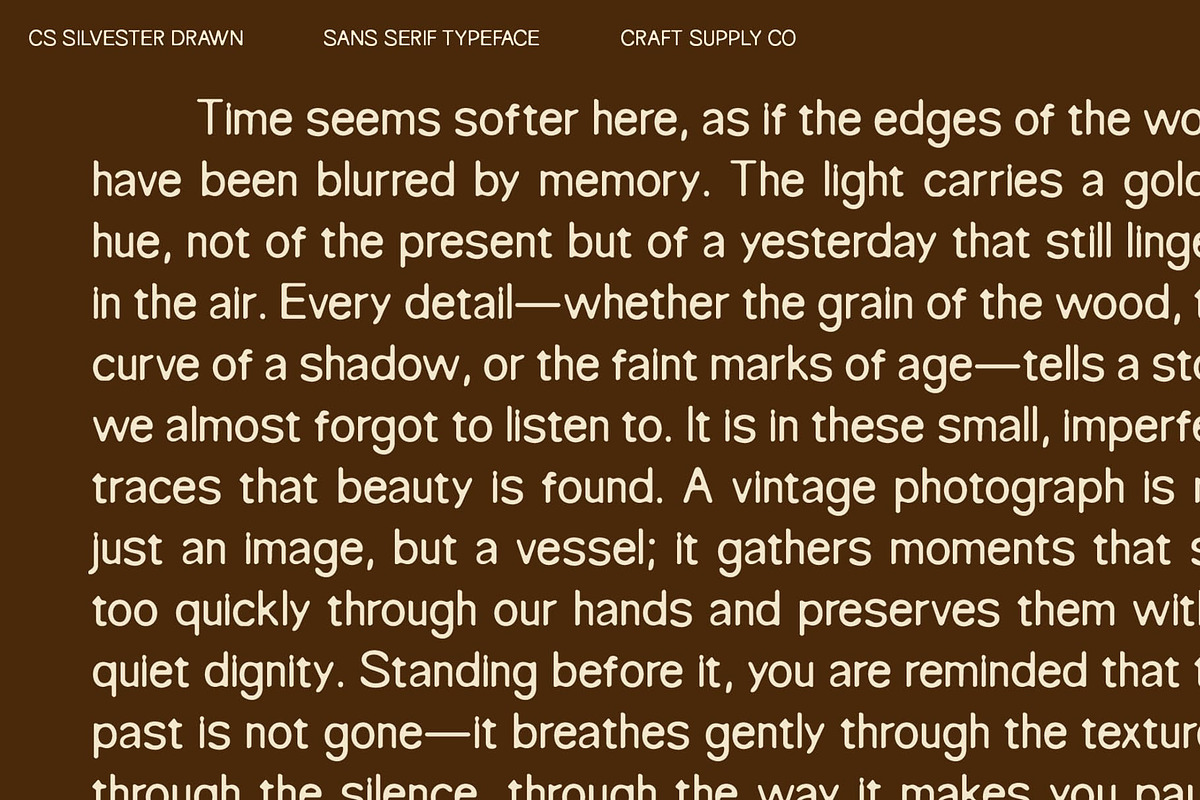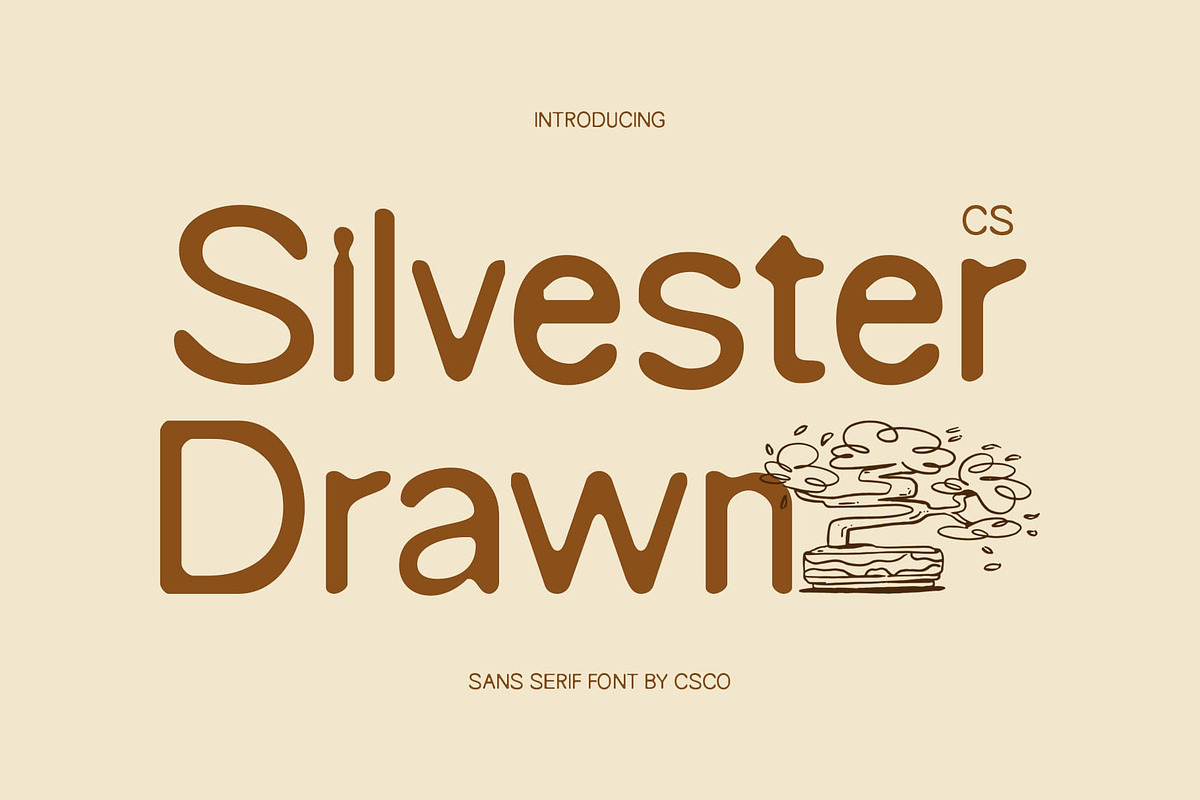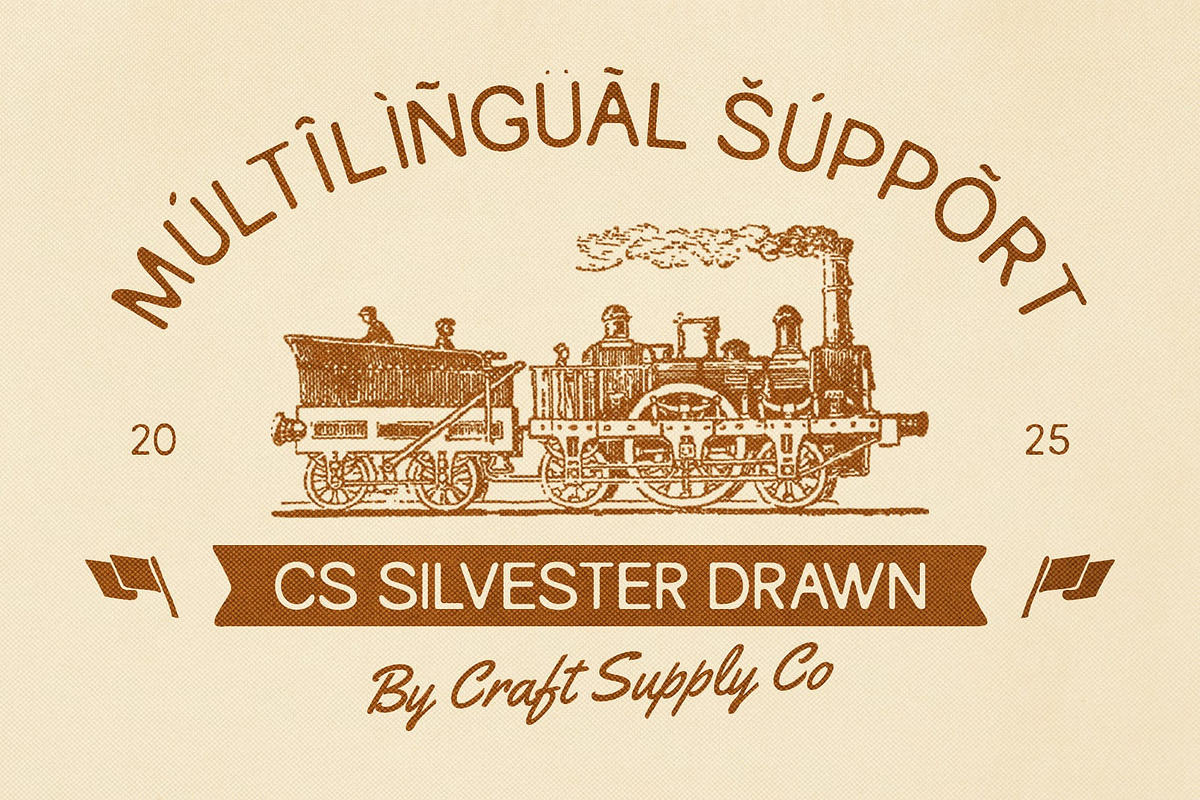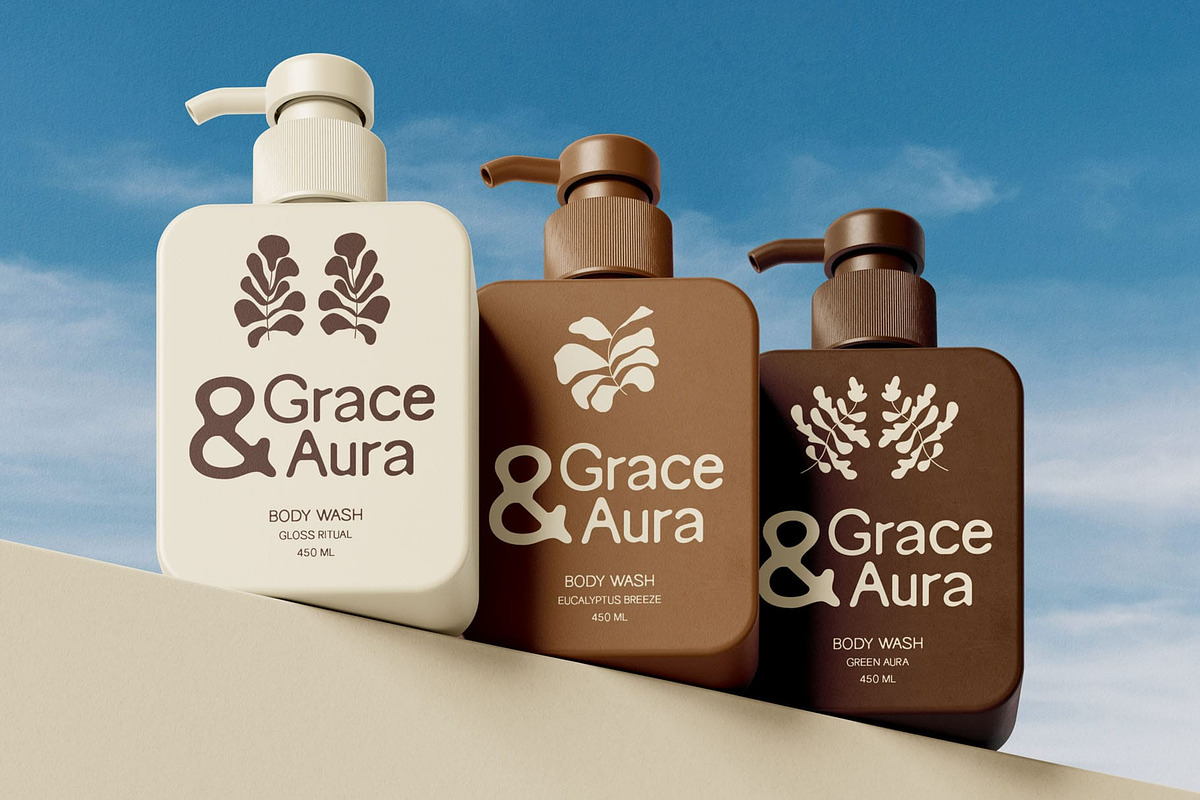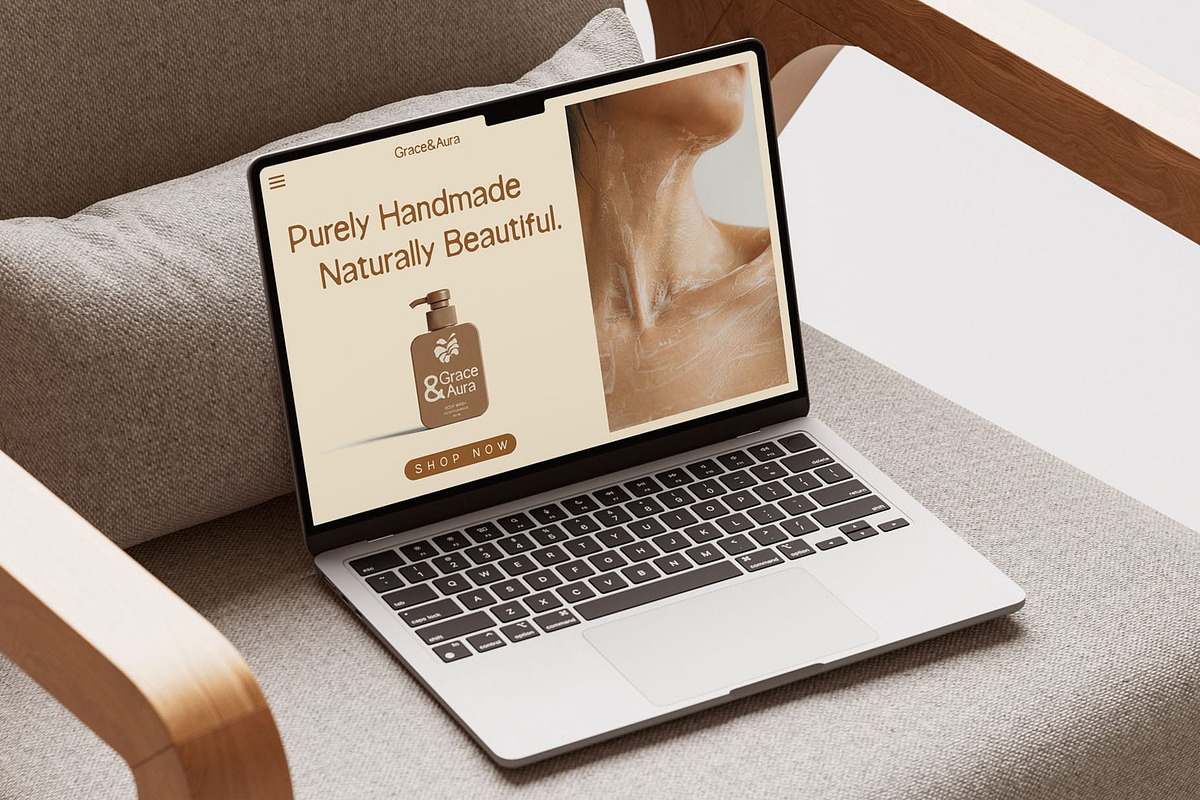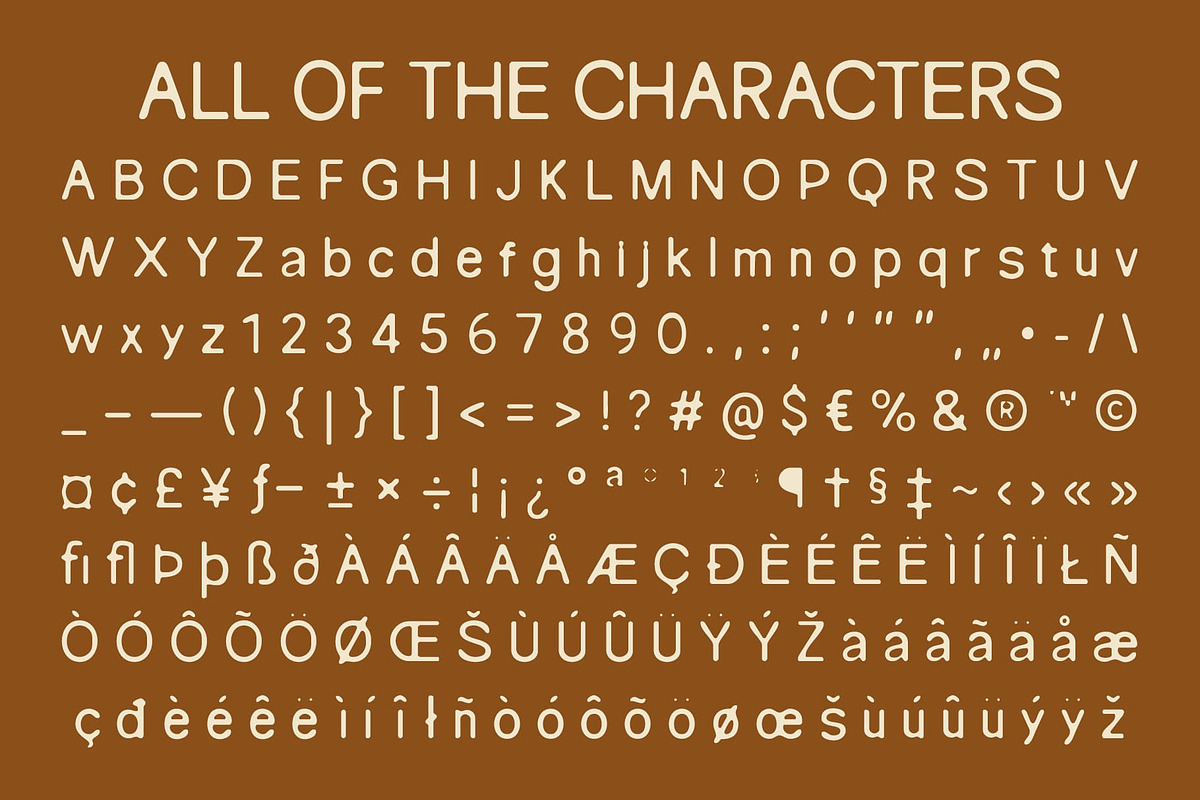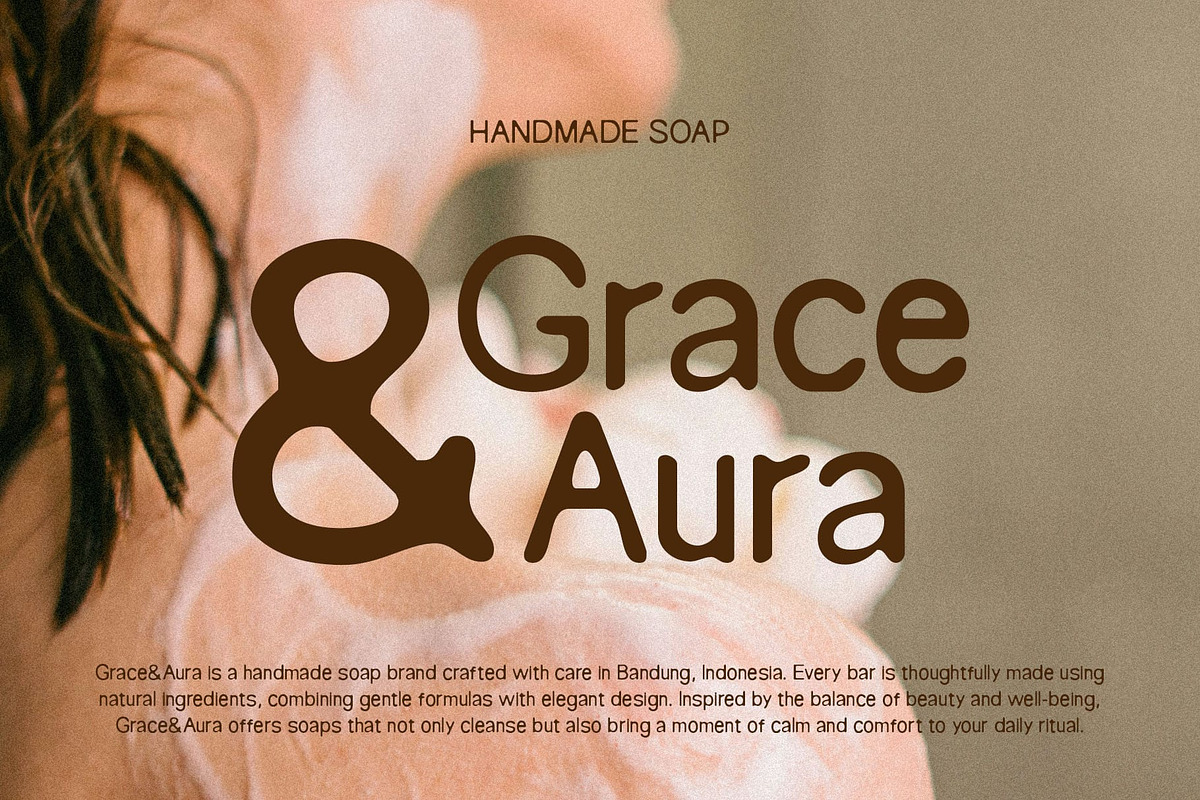
CS Silvester Drawn
CS Silvester Drawn – Geometric Precision with Handmade Depth: Where Structure Meets Creative Expression
Geometric Sans Serif with Artistic Touch This is a geometric sans serif font defined by clean, precise lines that radiate modern professionalism. Its structured form provides a strong foundation for clarity and versatility, making it an ideal choice for bold and contemporary design projects.
Hand-Drawn Detailing for Character What sets this font apart is its subtle hand-drawn detailing, resembling ink streaks across the letterforms. These organic textures soften the geometry, adding warmth, depth, and a touch of human artistry to an otherwise modern and minimal style.
Balance of Precision and Creativity The interplay between sharp geometric structure and handmade imperfection creates a font that is both reliable and expressive. It delivers clarity and professionalism while leaving space for creativity, making it suitable for projects that require both order and individuality.
Perfect for Branding and Editorials The font shines in branding, digital projects, and editorial layouts. Its clean yet artistic nature makes it adaptable whether on a sleek logo, a futuristic interface, or the pages of a magazine, it communicates sophistication while standing out with unique personality.